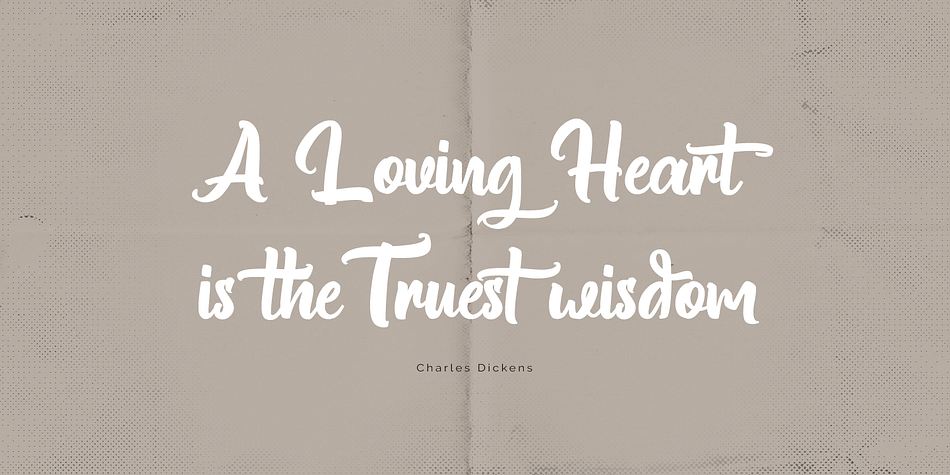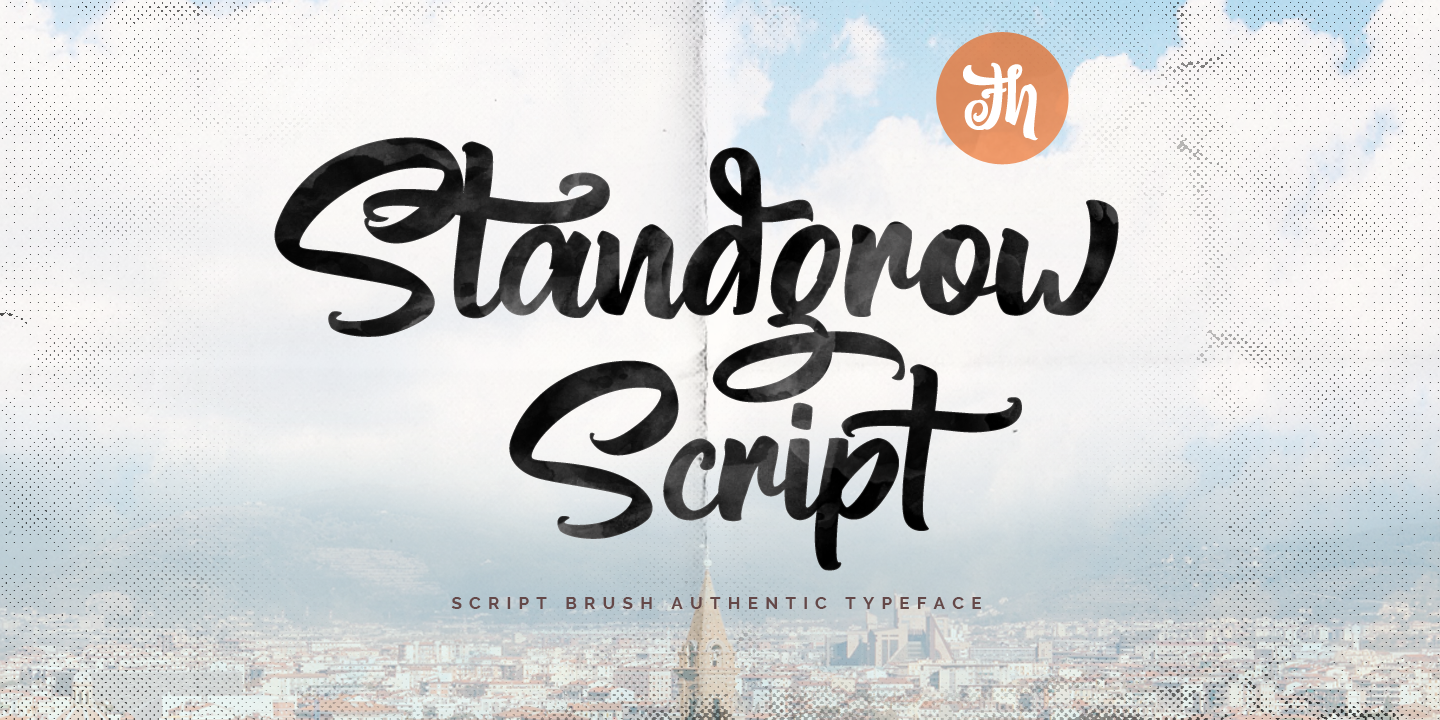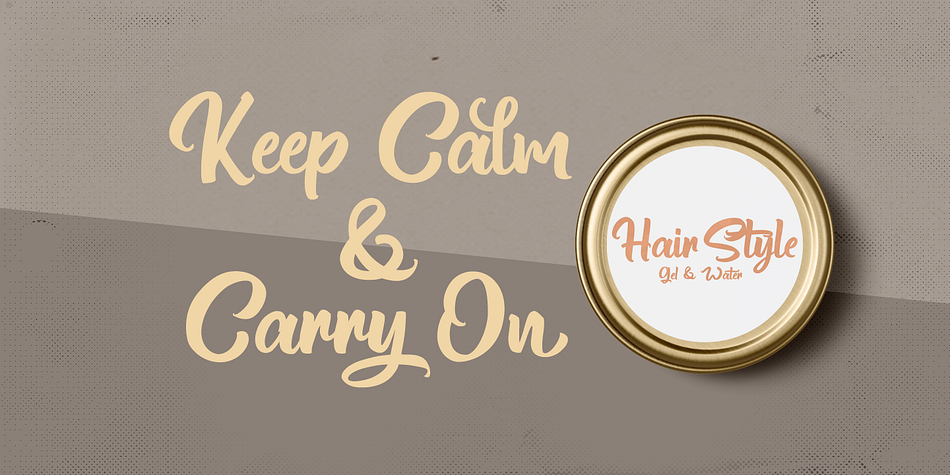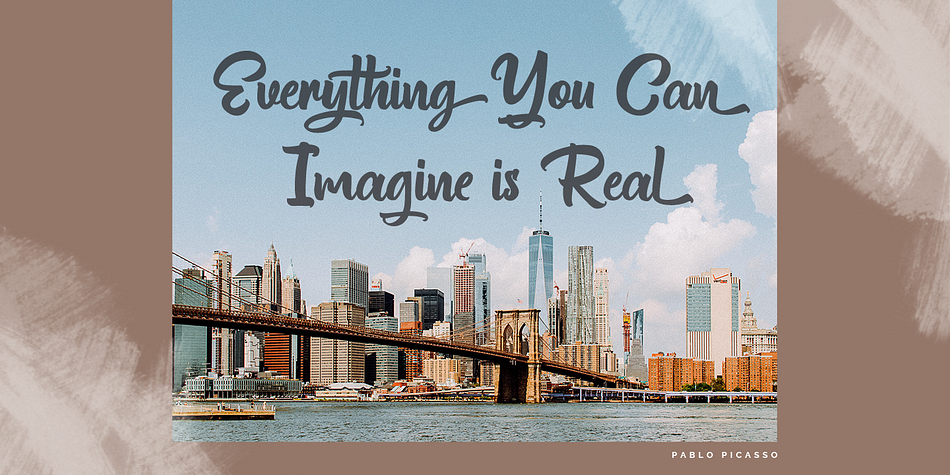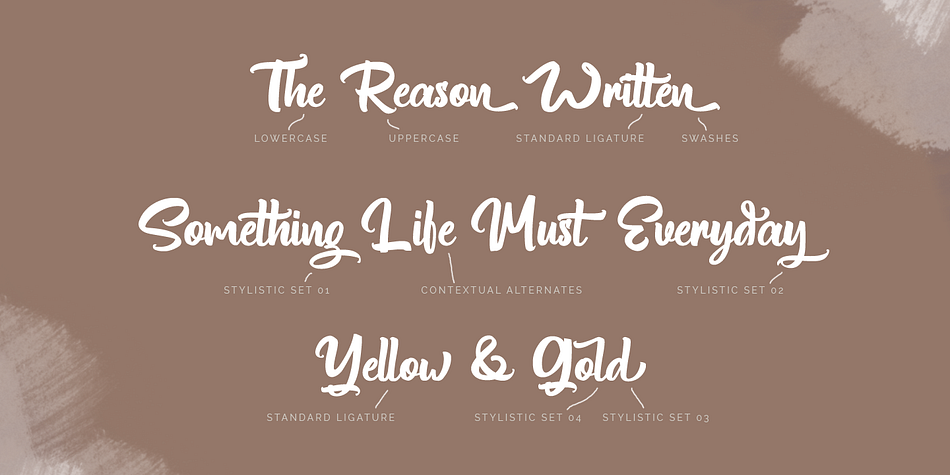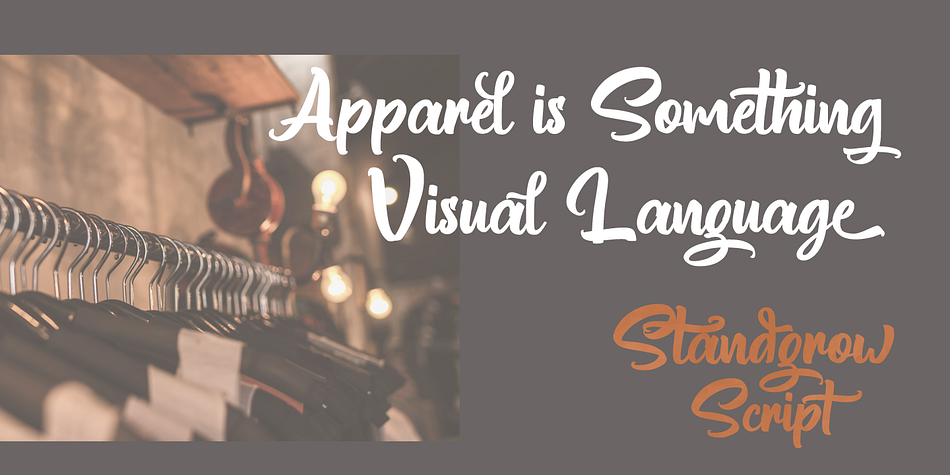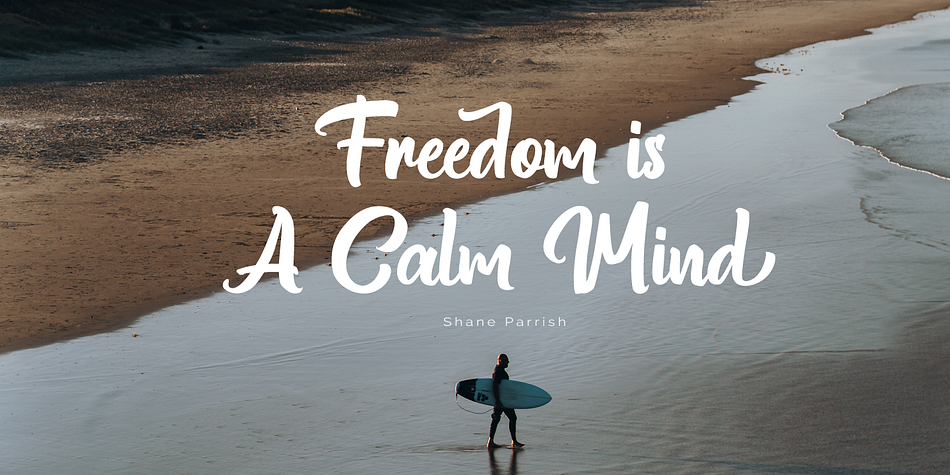
Designed by Ferry Hadriyan, Standgrow is a brush script, retro and script font published by feydesign.
Standgrow - Script Font
Standgrow is script font with authentic clean brush style, with opentype feature include of the font. Suitable for design, element design, wedding, event, t-shirt, logo, badges, sticker, and awesome work, etc…
- All Standard Character, Symbol, Multilanguage, Ligature, Stylistic Set, and Swashes.
- Unique style fonts